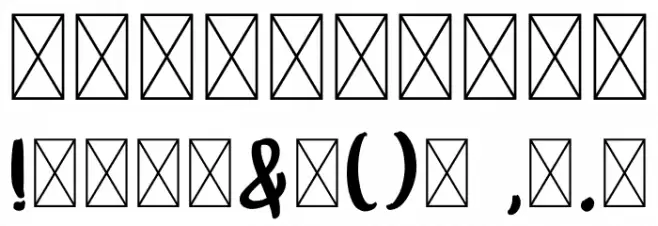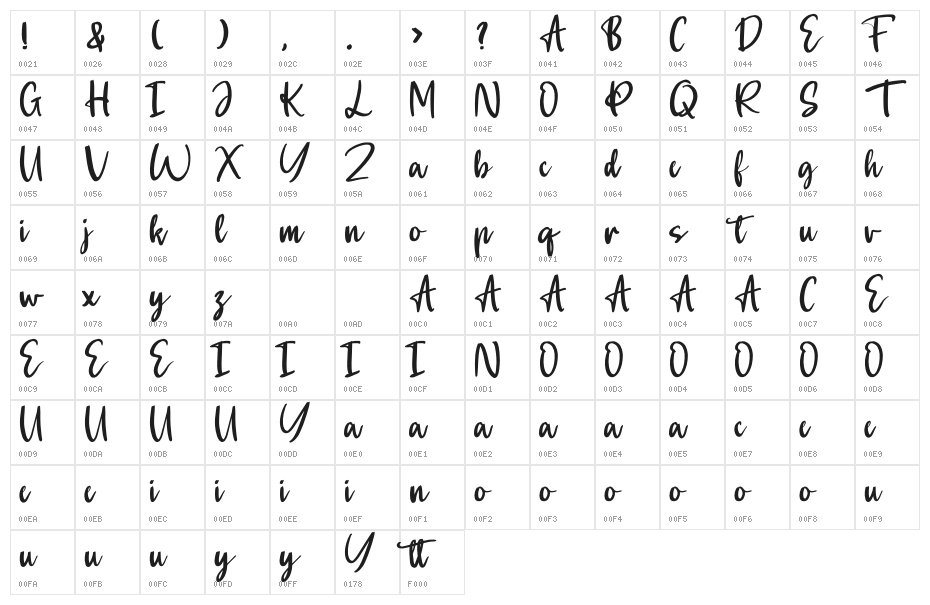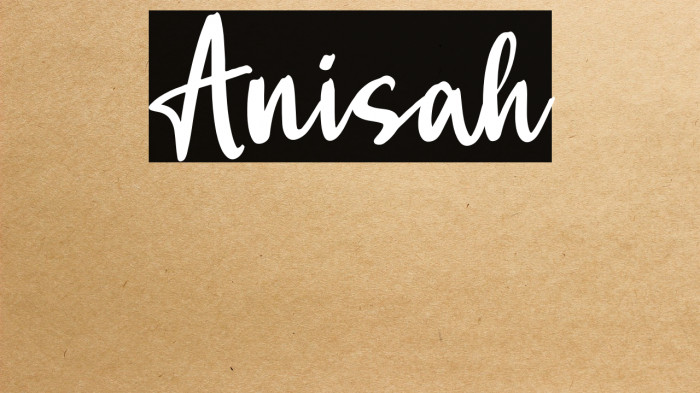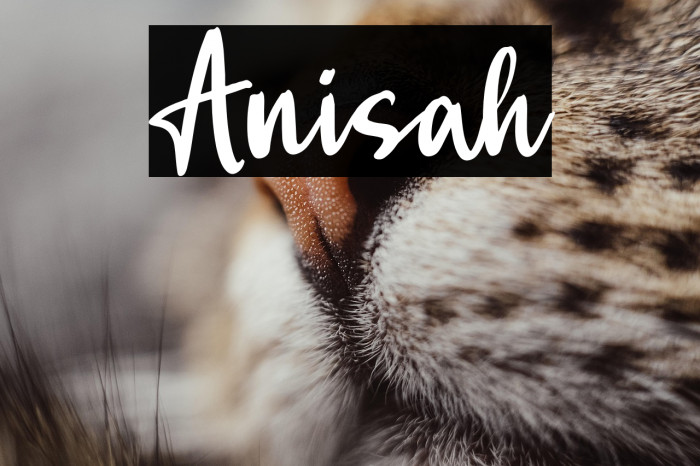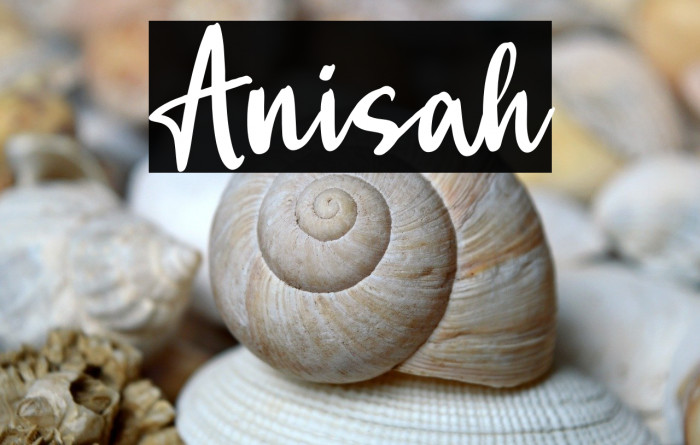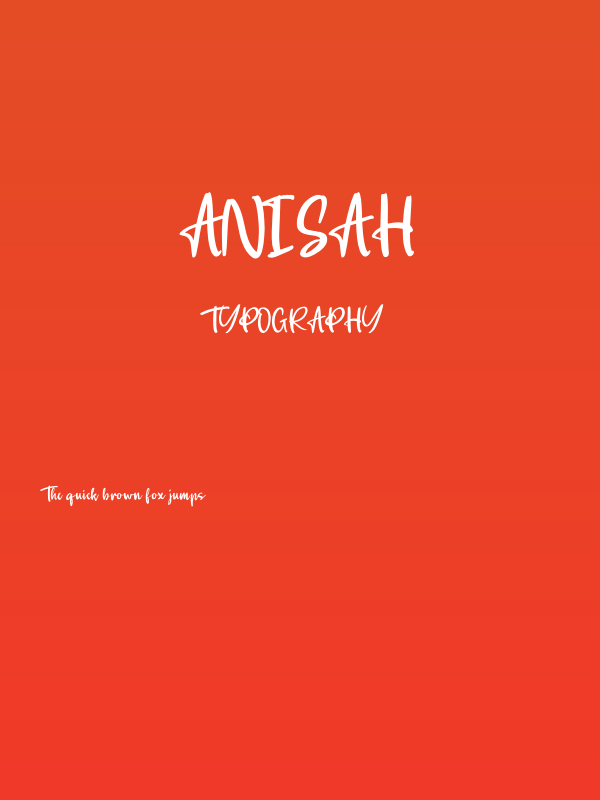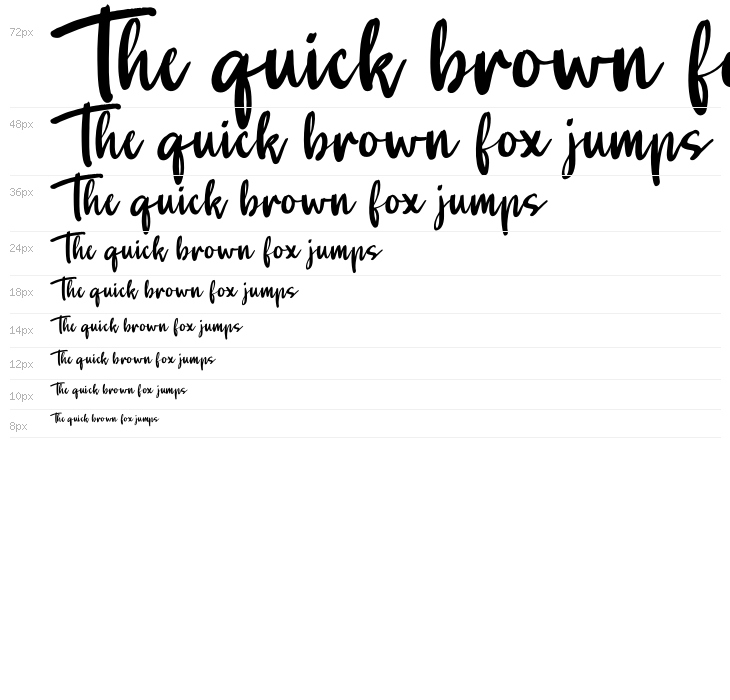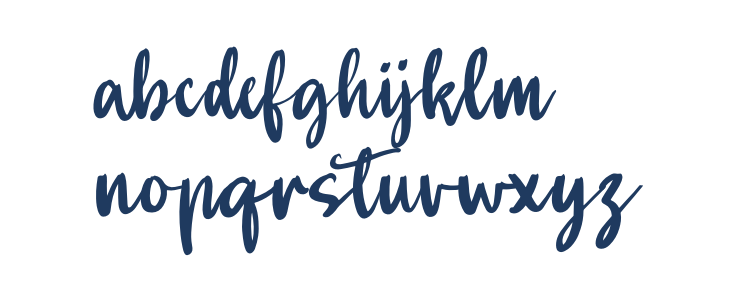
Anisah Font
Anisah Description
This font features a bold and expressive handwritten style, characterized by its fluid and dynamic strokes. The uppercase letters are tall and slightly slanted, giving a sense of movement and energy. The lowercase letters maintain a consistent flow, with some characters featuring loops and curves that enhance the handwritten aesthetic. The overall appearance is casual yet sophisticated, making it suitable for projects that require a personal touch. The font's unique style is complemented by its medium contrast, with varying stroke thickness that adds depth and interest to the text.
A bold, expressive handwritten font with fluid strokes and medium contrast from Regular fonts.
- Proposed Projects: Ideal for branding, invitations, greeting cards, and social media graphics.
- Use Case: Logos, Headlines, Invitations